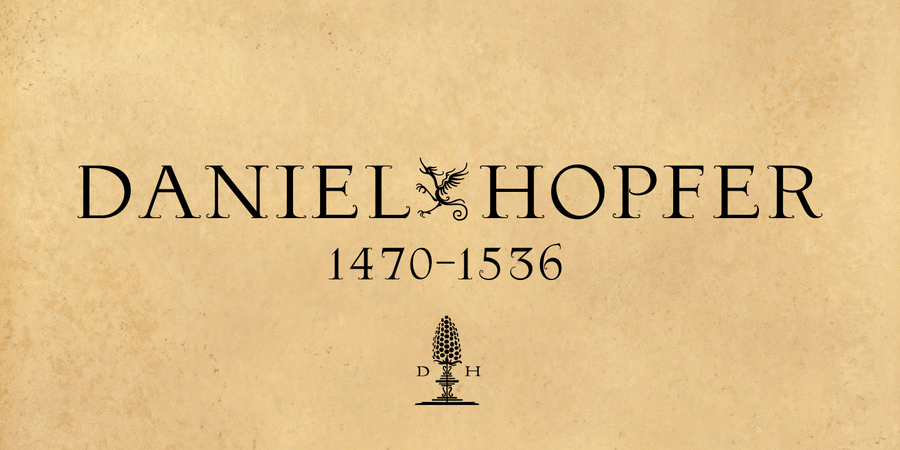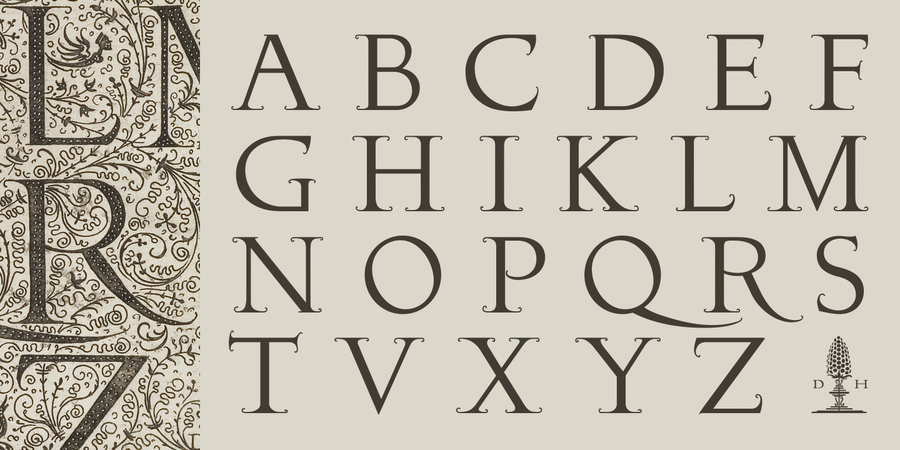
Hopferian (3 fonts)
This font has been developed based on the engraving by the German artist Daniel Hopfer (1470-1536) listing the Latin ABC. While creating the font I tried to preserve the archaism and certain imperfection characteristic for the prototype to accentuate its charm. Fanciful convolution on the serif make it a bit fairy-tale like and cheerful. The font is also available with decorated dots as in the original version. All the letters in the font are capital. The digital version of the typeface was designed by Lukyan Turetskiy and Maria Sokil in 2013.